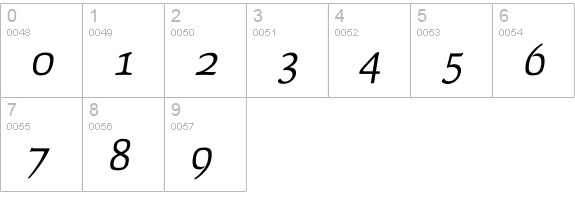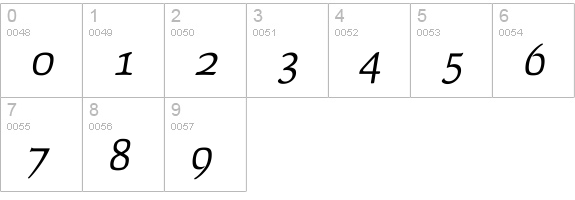
FaustLightItalicOldStyleFigs Font Details
FaustLightItalicOldStyleFigs font is a beautiful and elegant typeface that exudes sophistication and charm. Its delicate italic style and classic old-style figures make it a perfect choice for adding a touch of refinement to any design project. The slender serifs and graceful curves of this font create a sense of timeless elegance that will elevate your typography to a new level. Best of all, FaustLightItalicOldStyleFigs font is completely free to download at FontsMarket.com. Whether you're looking to enhance your branding, create stunning print materials, or elevate your web design, this versatile font is a valuable addition to your toolkit. Download it today and add a touch of class to your projects with the exquisite FaustLightItalicOldStyleFigs font.